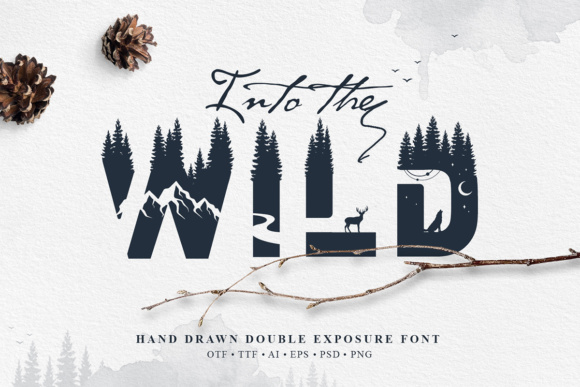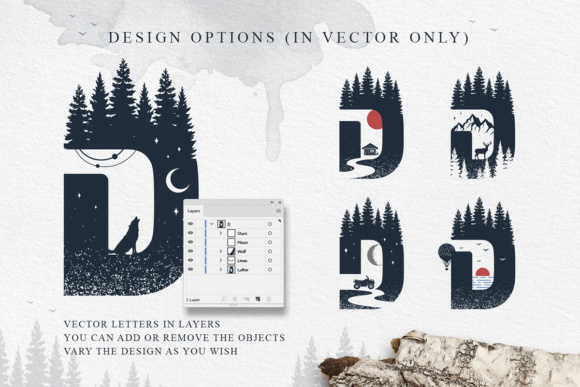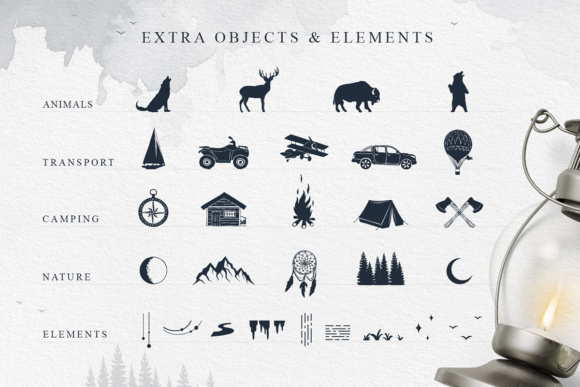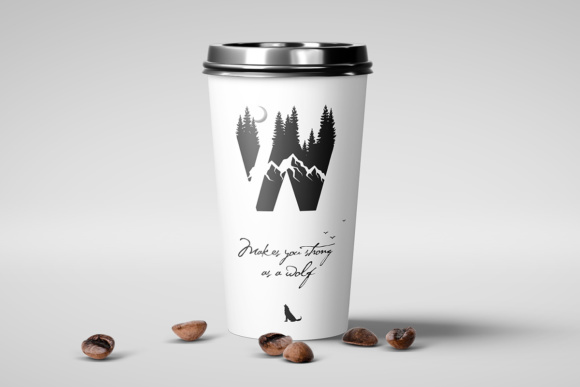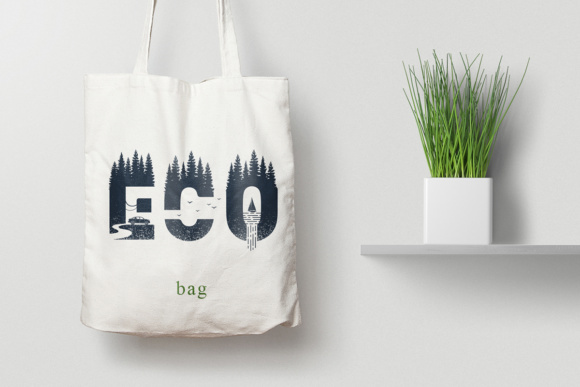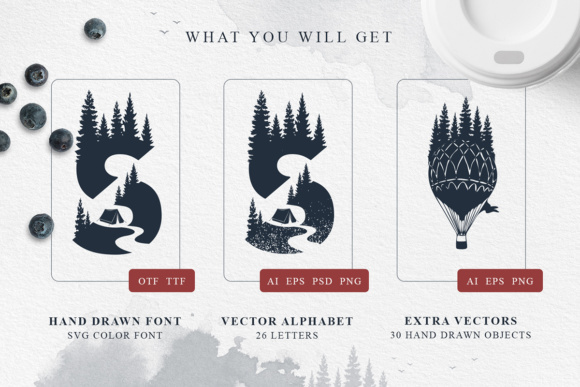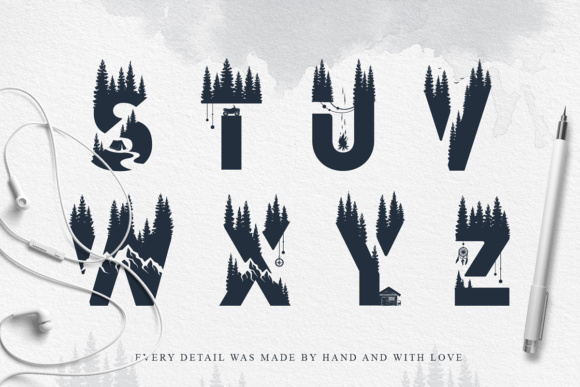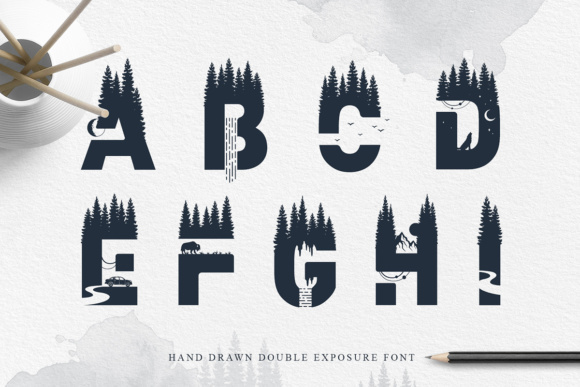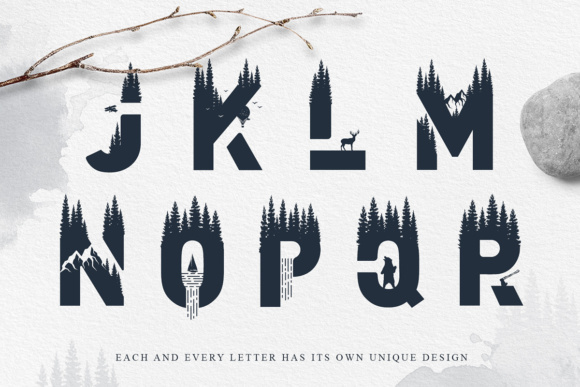
Into the Wild Font
Into The Wild is a modern color font that features a unique double exposure effect, adding a touch of intrigue and creativity to your design projects. Each letter of the font has been meticulously crafted by hand, and it includes various elements such as trees, animals, cars, waterfalls, and more, making it visually captivating and versatile.
This font is perfect for a wide range of design projects, from posters and flyers to digital artwork and branding. The double exposure effect adds depth and visual interest, creating a stunning and contemporary look. Whether you’re designing for nature-themed projects, adventure campaigns, or any creative endeavor that requires a modern and artistic touch, Into The Wild will make your designs stand out.